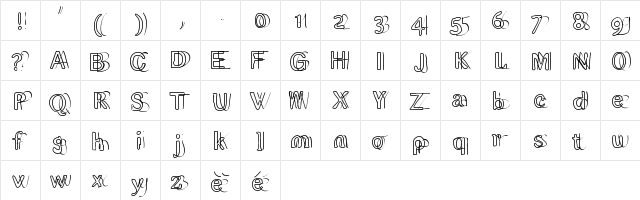
double Medium
Design Context for double Typeface
double is a composed and adaptable typeface that performs quietly and consistently across a wide range of design contexts.